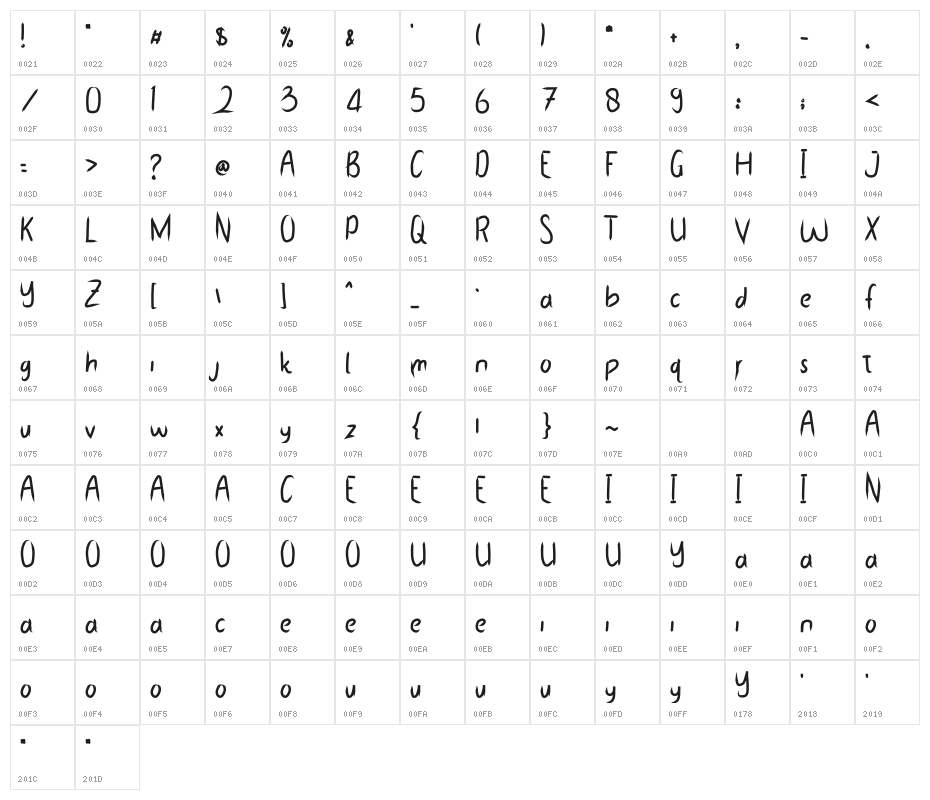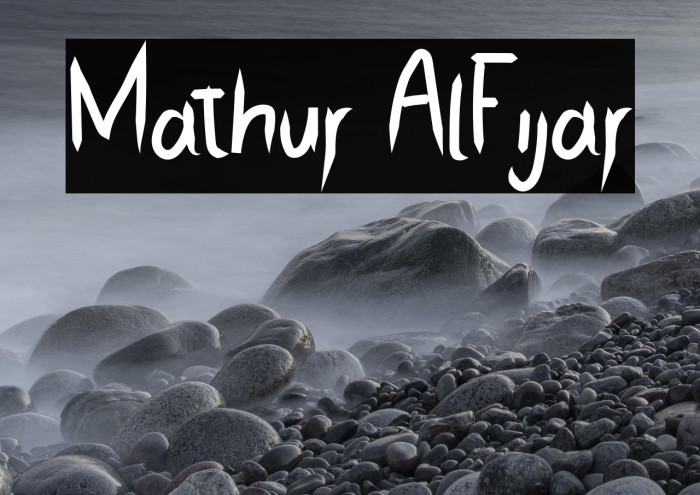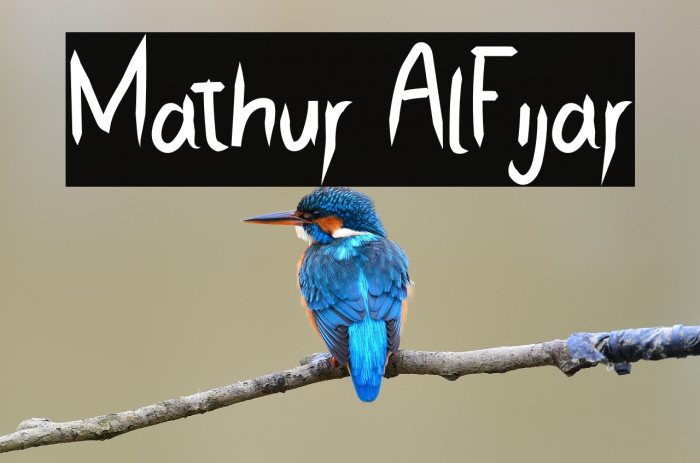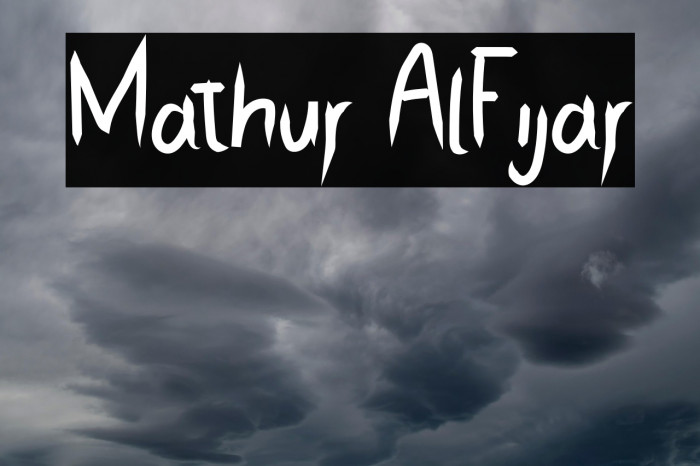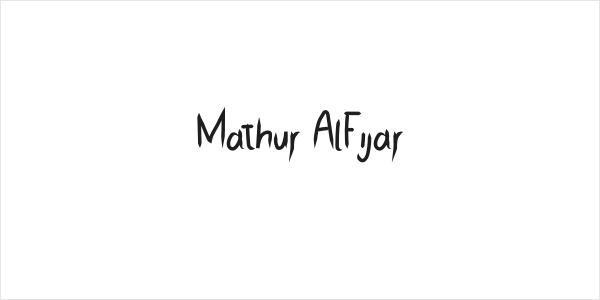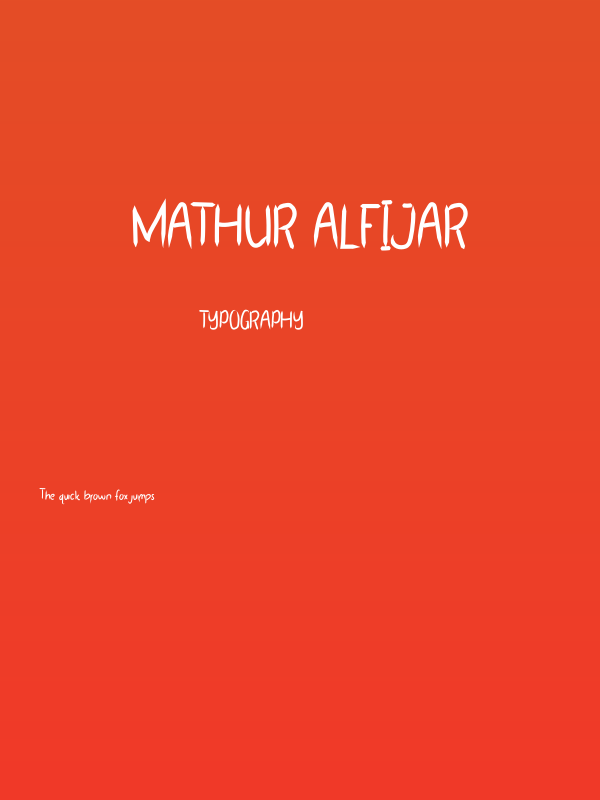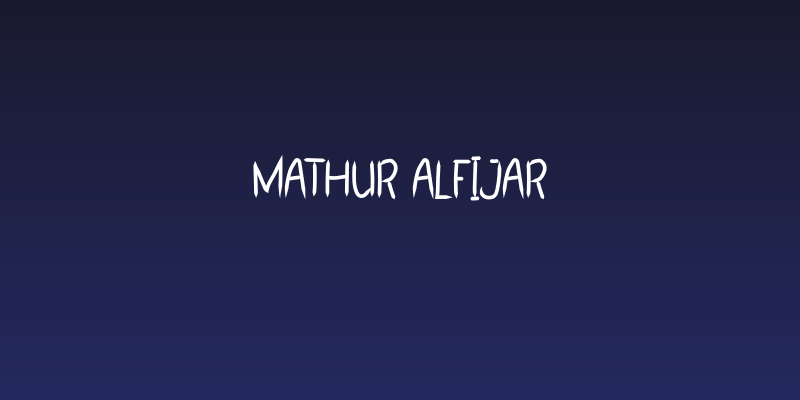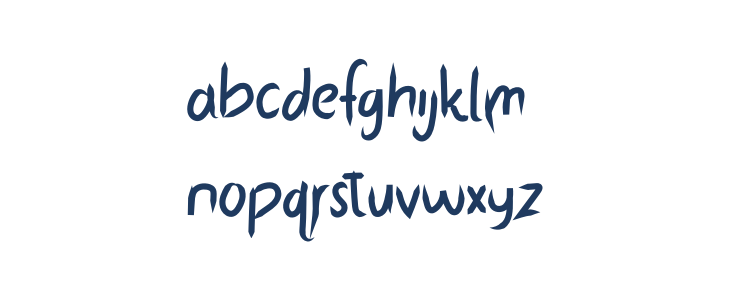
Mathur AlFijar Font
Mathur AlFijar Description
This font features a dynamic and expressive handwritten style, characterized by its fluid and slightly irregular strokes. The uppercase letters exhibit a bold presence with elongated verticals and playful curves, while the lowercase letters maintain a consistent flow, enhancing readability. Numbers are crafted with a similar flair, ensuring they stand out yet harmonize with the alphabetic characters. Special characters are designed with the same attention to detail, making them suitable for creative and informal contexts. The overall appearance is lively and artistic, perfect for projects that require a personal touch.
| Use Case | Logos, Headlines, Artistic projects |
| Proposed Projects | Ideal for greeting cards, invitations, artistic posters, and branding that requires a personal and creative touch. |